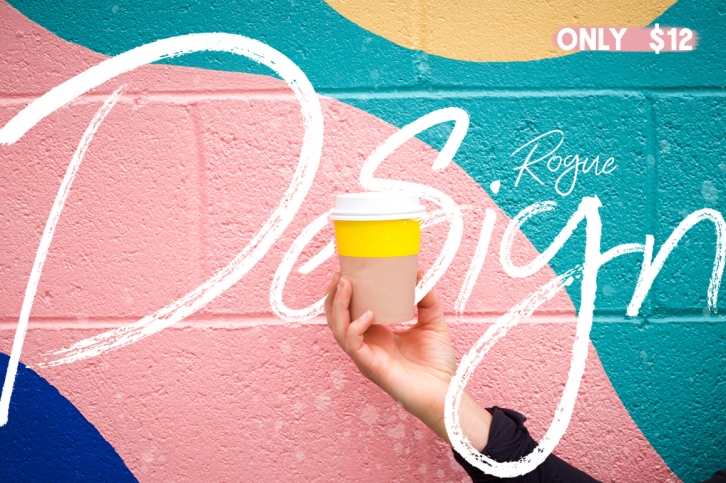
Rogue Design is a beautiful font that was designed by Salt and Pepper Designs. It's a great choice for designers and creatives who need such a font. It was released on January 19, 2018 and the file size is 18.77 MB. Rogue Design may give a more youthful, expressive and casual look to your project. It is a very beautiful, refined, elegant, and high-quality font.